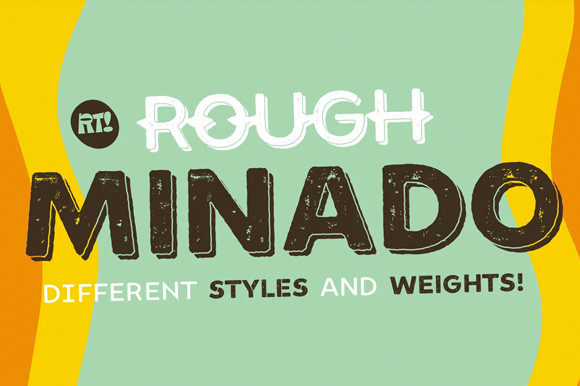
Behold the Minado Rough, a swashbuckling display font that oozes attitude and individuality. Its bold strokes and playful edges bring a sense of raw energy and urban grit to your designs, immediately captivating your audience.
Unleash your creativity and let Minado Rough take center stage in your brand identity. This font is a true chameleon, adapting effortlessly to a diverse range of projects, from eye-popping logos and posters to edgy apparel and social media campaigns. Its versatility is simply unparalleled, ensuring that your message always shines through with maximum impact.
Picture this: your brand adorned with the Minado Rough, commanding attention and leaving a lasting impression. It's the perfect font to convey a sense of authenticity, strength, and youthful exuberance. Whether you're a daring entrepreneur, a savvy marketer, or an artistic visionary, this font will amplify your voice and resonate with your target audience.
Minado Rough isn't just a font; it's an extension of your personality, a reflection of your brand's unique spirit. It's the perfect tool to cut through the noise, stand out from the crowd, and create a brand identity that truly captivates and compels.
So, embrace the Minado Rough, and embark on a creative journey that will redefine your brand and leave an indelible mark on your audience. Let this font be your weapon of choice in the battle for attention, and watch as your brand ascends to new heights of success and recognition.